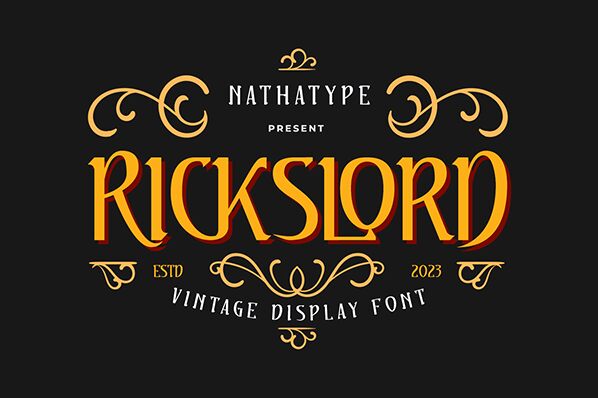
Rickslord font, created by Nathatype, is a display font style with a retro and condensed construction that can bring your designs back to the 60s. With vintage letter shapes that include noticeable high contrast, stylish terminals, and wide spacing; this is an imperfectly perfect lettering option that can work within both formal context and more artsy creative fields.